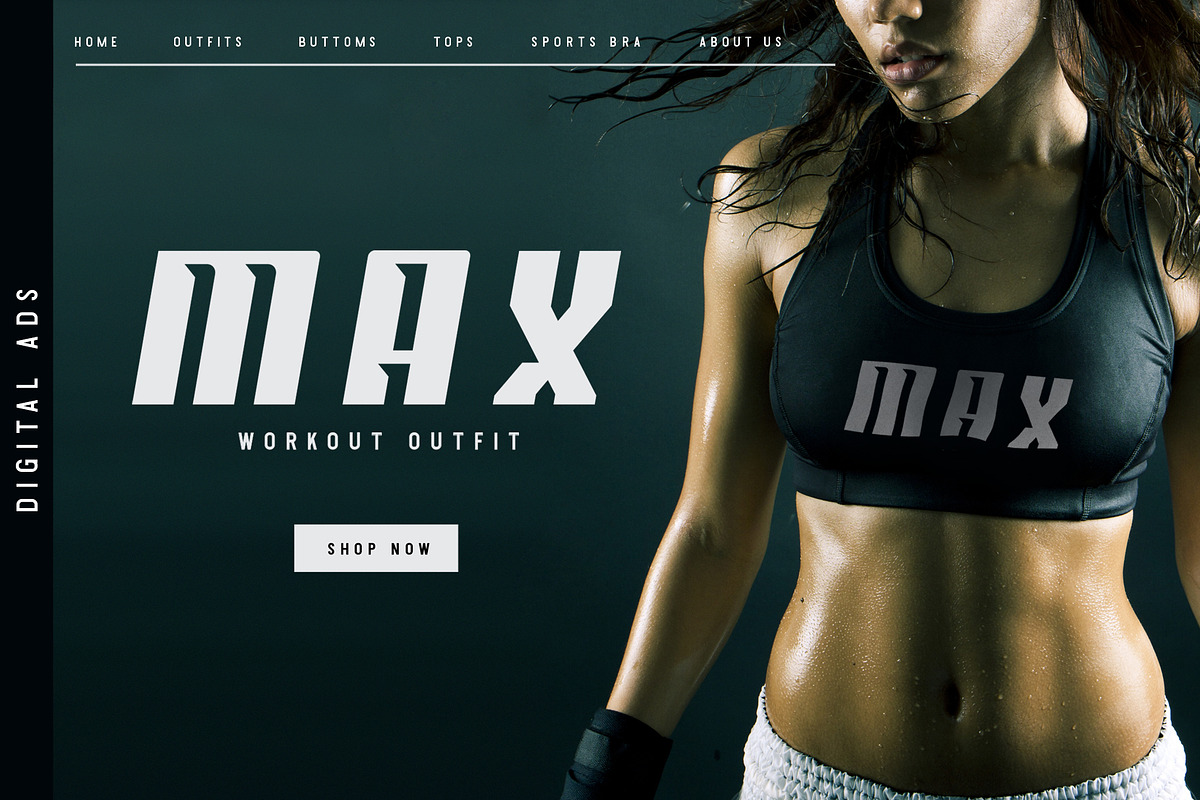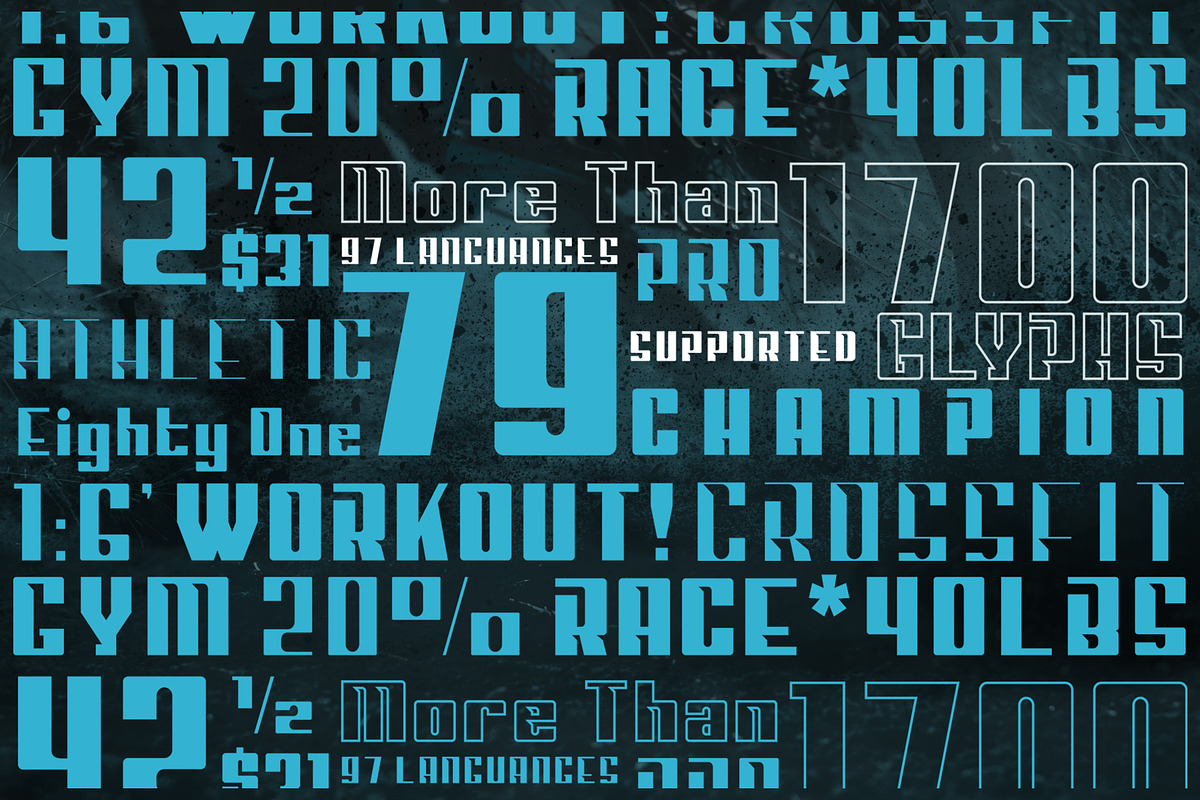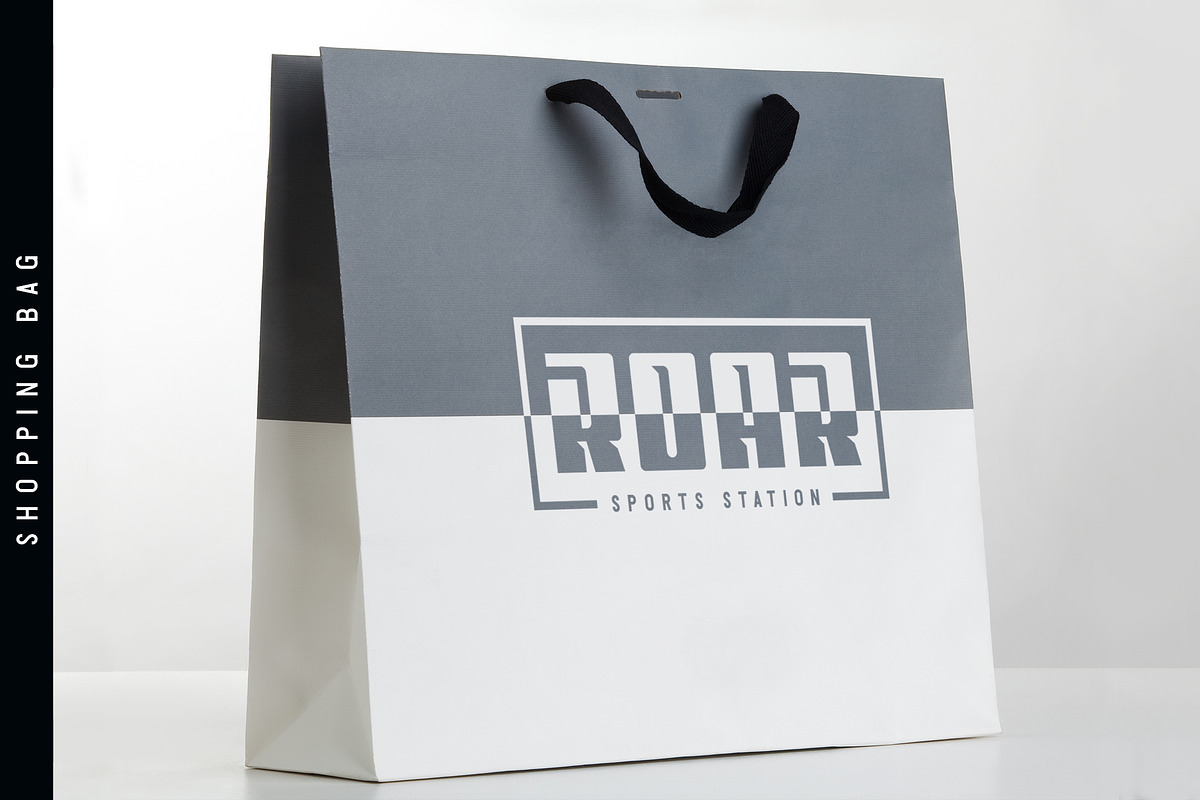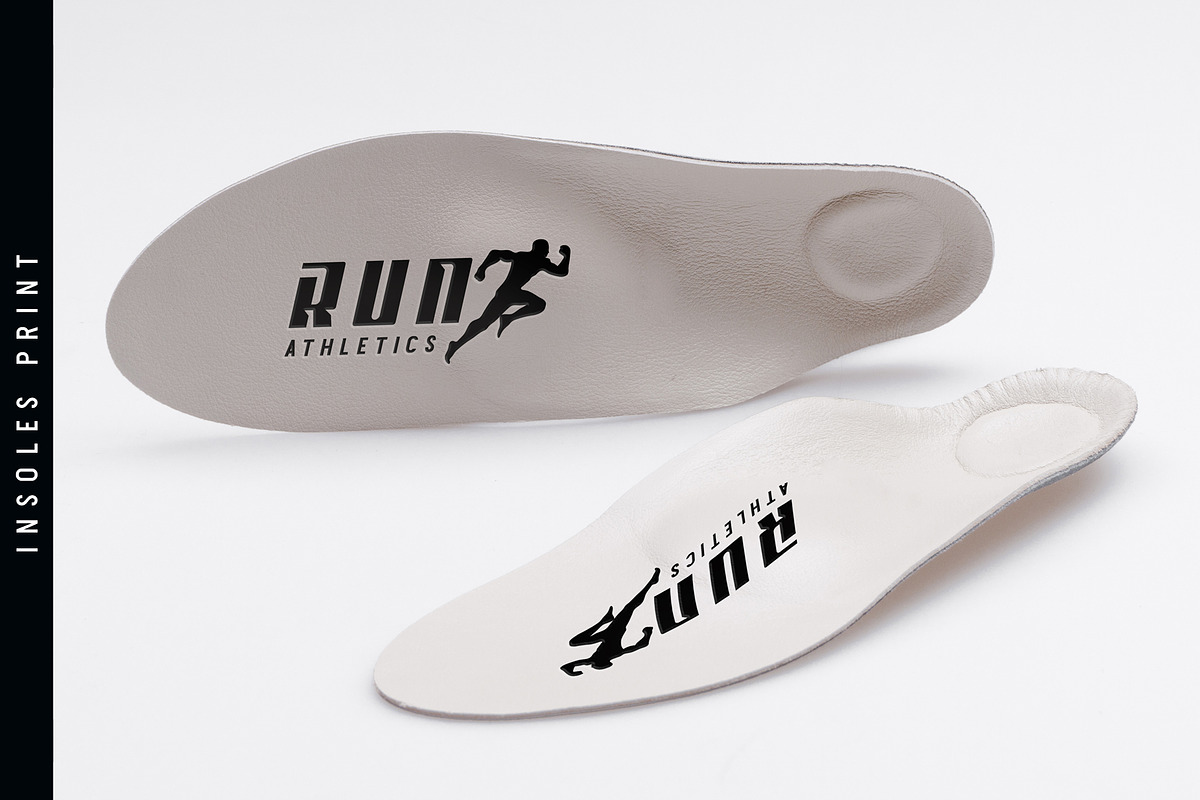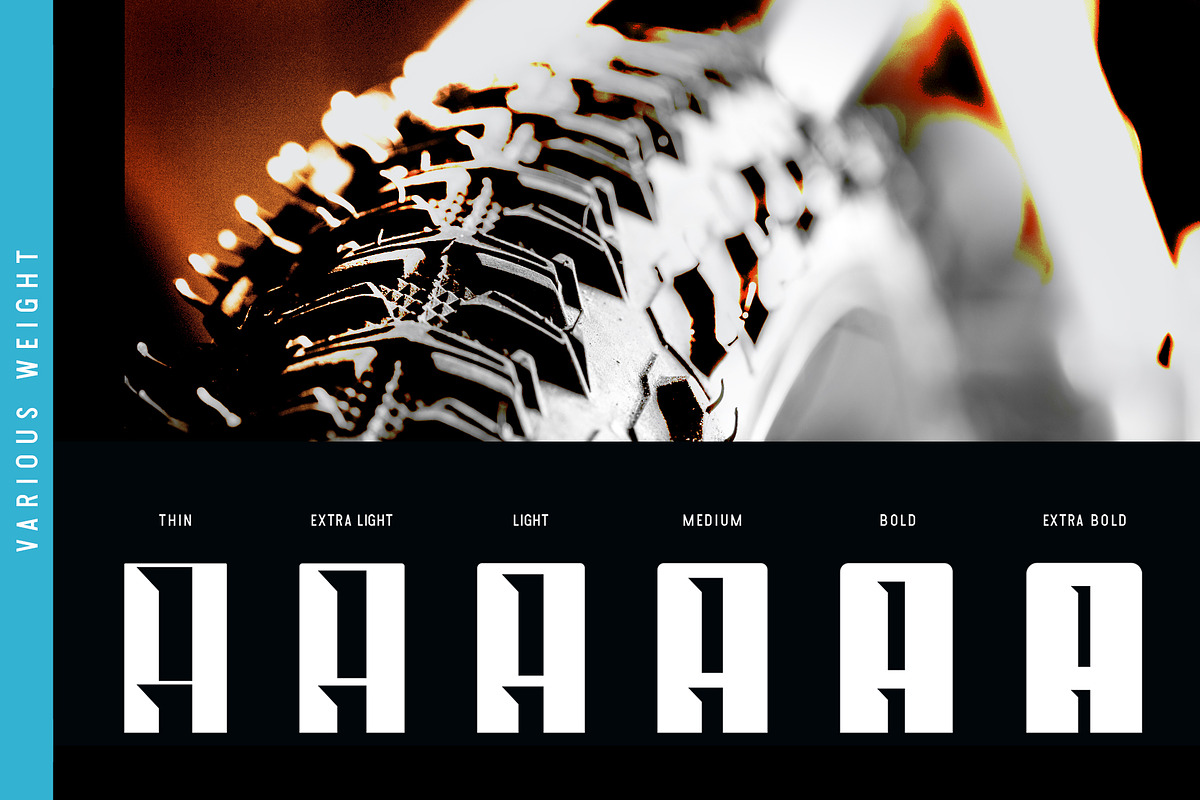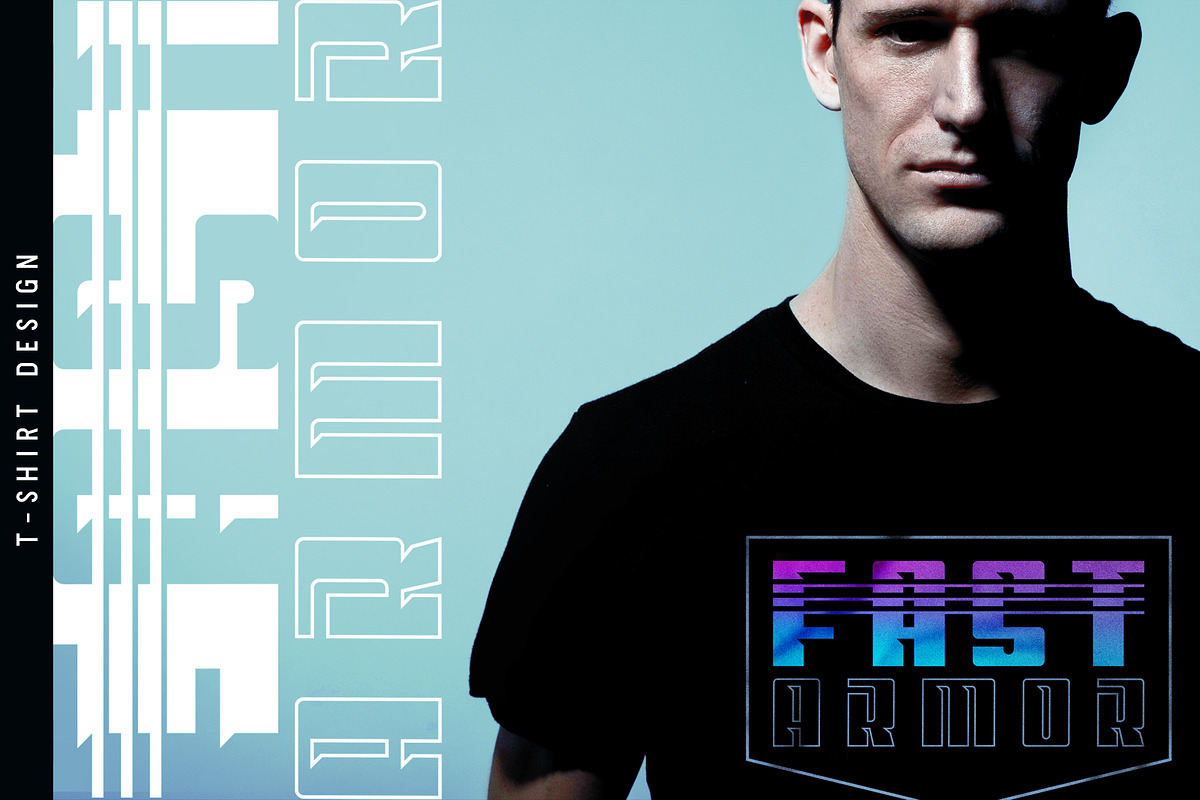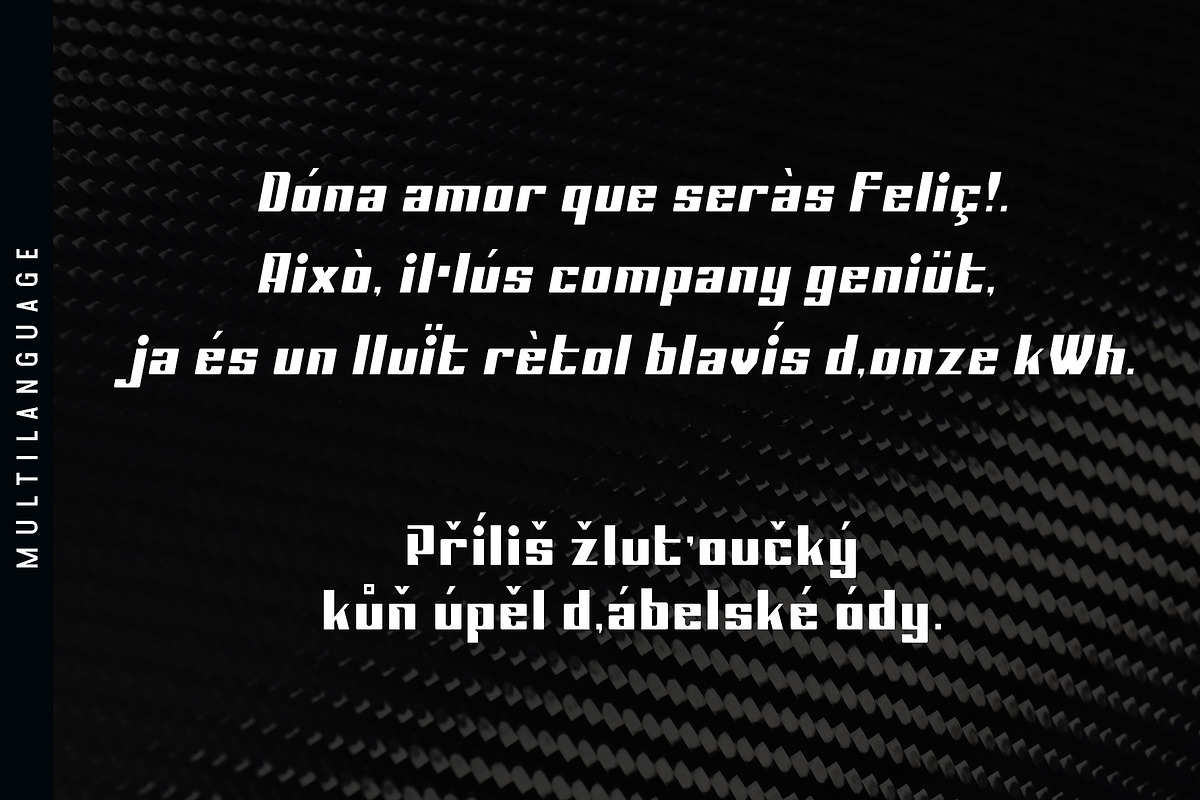
Sportage - Font Family
Sportage is a sports font family with multiple weight size from thin to extra bold. Italic version provided to bring another vibe of speed. Built for people who have enthusiasts with race, workouts & athletic. Rooted in the original shape of original competitive sports spirit.
The Idea is to bring the dynamic shape and the weight into typhography; elevating athletic performance through progresive innovation of font, so whenever people see the font they think of hard works & sports.
The goal is to make the font looks stand out and visible to many possible placement on sports outfit & ads. No mater how small the print area, you can always easily choose the weight of the font from thin to extra bold.